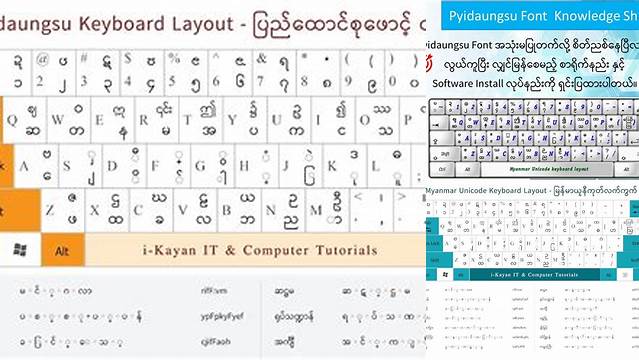
Understanding the Pyi Daung Su Font and Its Appeal
The Pyi Daung Su font, guys, is a pretty special character set, especially if you're working with Burmese or Myanmar scripts. It's designed to accurately represent the unique curves and characters of the Burmese language, making it a go-to choice for many who need to type or display text in this script. For anyone looking to download the Pyi Daung Su font for their PC, especially on older but still very functional systems like Windows 7, finding reliable sources is key. This font isn't just about aesthetics; it's about accurate linguistic representation. When you're typing in Burmese, you need a font that handles all the diacritics, ligatures, and specific character forms correctly, and Pyi Daung Su has been developed with these needs in mind. Its popularity stems from its readability and its adherence to the standards of Burmese typography. Many users specifically search for "Pyi Daung Su font for PC free download Windows 7" because they're either setting up a new machine, need to reinstall it, or are looking for an updated version. The challenge with older operating systems like Windows 7 is ensuring compatibility. While modern fonts are often designed for newer OS versions, many established fonts, including Pyi Daung Su, have versions that work seamlessly with Windows 7. The process usually involves downloading the font file, typically in a .ttf (TrueType Font) or .otf (OpenType Font) format, and then installing it directly into your Windows system. The appeal of this font lies in its clarity and its ability to render Burmese text beautifully across various applications, from word processors to web browsers. It bridges the gap between digital text and the traditional beauty of the written Burmese language.
Why Choose Pyi Daung Su for Your Windows 7 PC?
So, why should you specifically look for the Pyi Daung Su font when you've got a Windows 7 machine, you ask? Well, there are a few solid reasons, guys. First off, Pyi Daung Su is widely recognized as one of the most accurate and aesthetically pleasing fonts for the Burmese script. If you're dealing with Burmese text – be it for official documents, personal correspondence, creative writing, or even web content – you want a font that gets it right. Pyi Daung Su delivers on that front, ensuring that every character, every nuance of the script, is rendered faithfully. For Windows 7 users, this is particularly important because older operating systems sometimes have quirks with font rendering, and a well-established, widely-used font like Pyi Daung Su is more likely to be stable and render correctly across different applications. Think about it: you don't want your important Burmese text to look jumbled or misaligned because of font issues. Furthermore, many users still rely on Windows 7 for its familiarity or because their hardware doesn't support newer versions. The demand for "Pyi Daung Su font for PC free download Windows 7" highlights this ongoing need. It's not about using outdated tech; it's about making the most of the tech you have. This font provides a reliable solution for accurate Burmese typesetting on this specific operating system. It offers a good balance between traditional Burmese calligraphy aesthetics and the demands of digital display. Its widespread adoption means that if you share documents with others, they're likely to have encountered or be able to easily use Pyi Daung Su, ensuring consistency. The ease of finding free download options further adds to its appeal, making it accessible for everyone, regardless of budget.